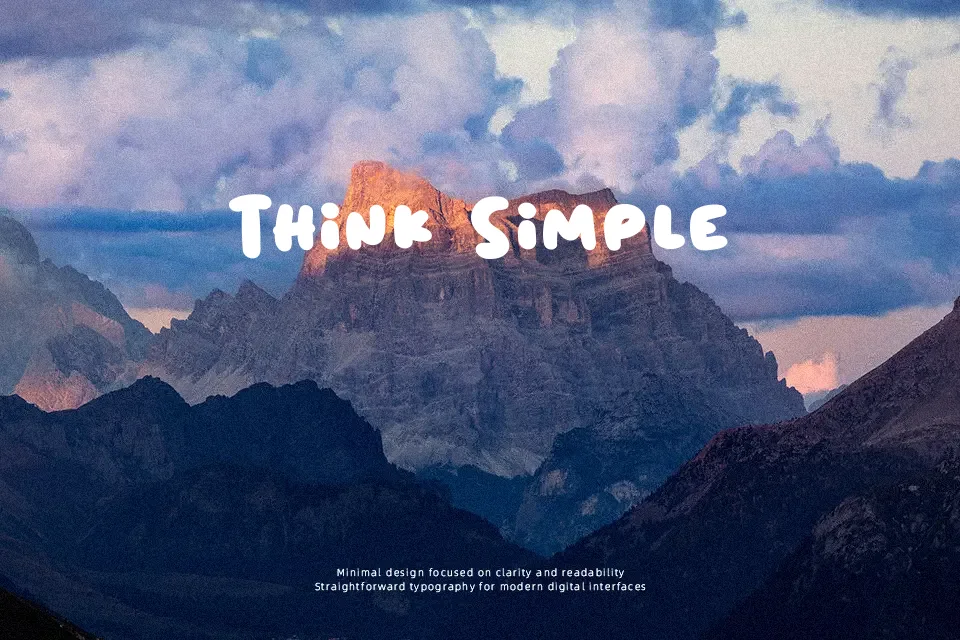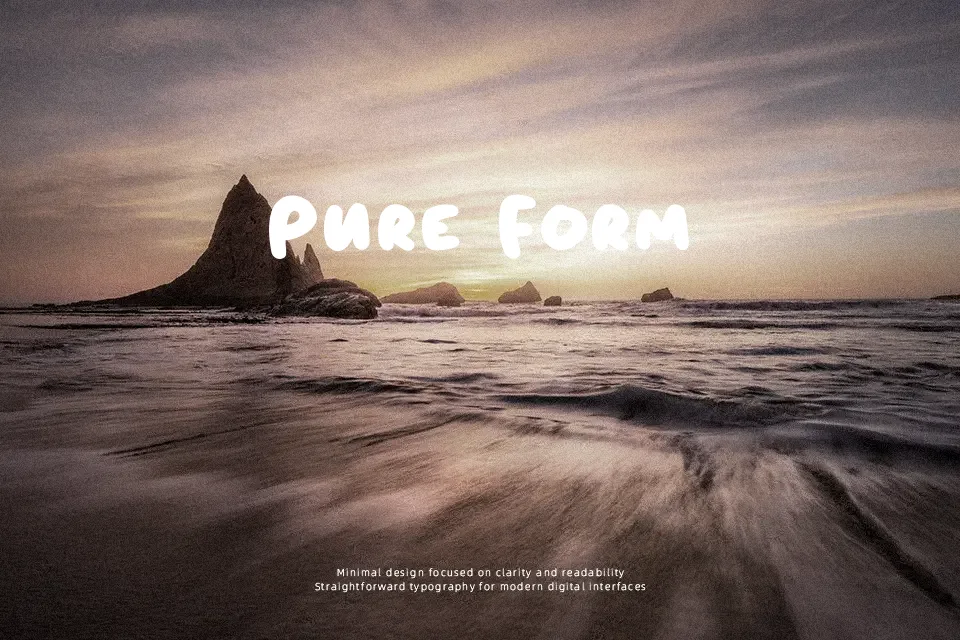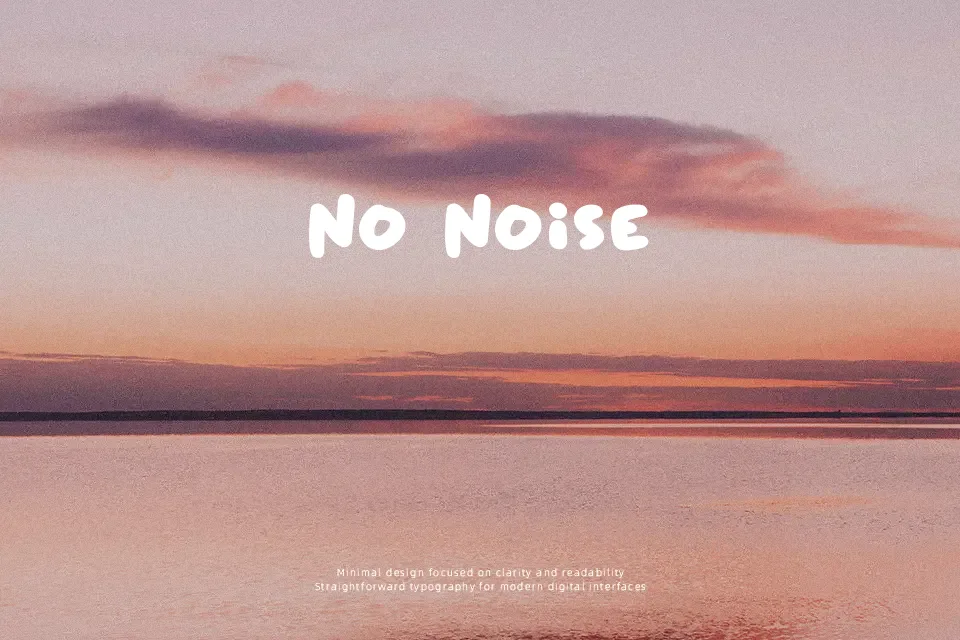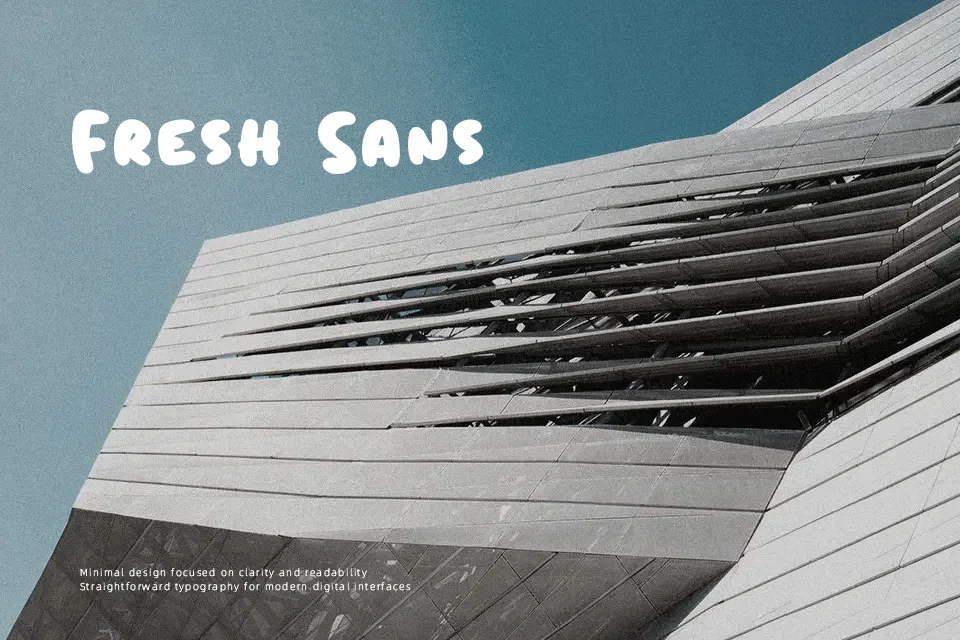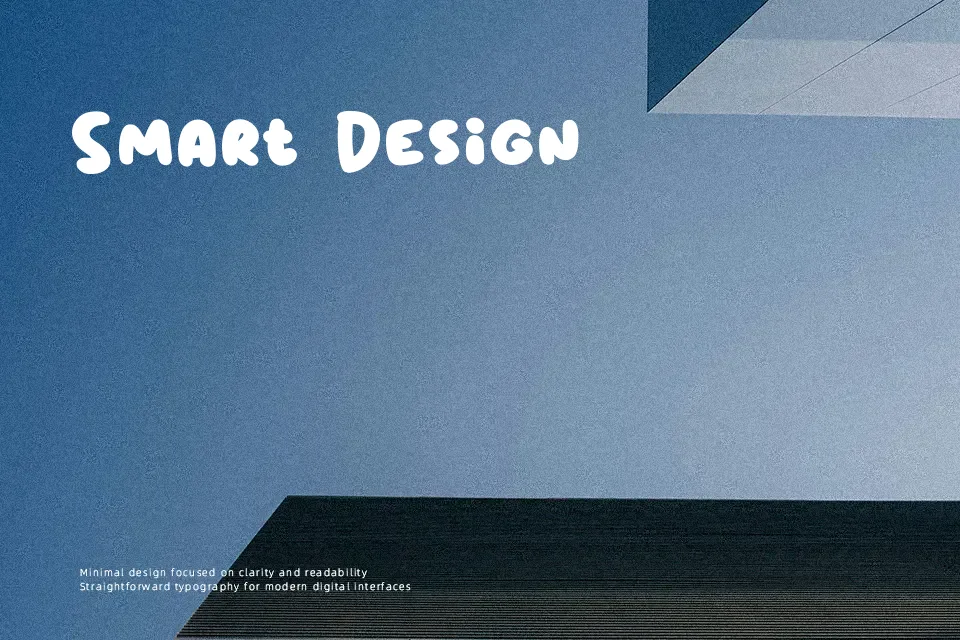
Tasty Matcha Font
Designed by Eifetstype
Tasty Matcha Font features bulbous, heavyweight letterforms defined by gentle curves, stubby ascenders, and virtually nonexistent stroke contrast. The compact horizontal proportions keep words cohesive on large display boards, allowing individual characters to command attention across bright retail displays and menu headings. While uppercase shapes maintain consistent optical rhythm, the swollen counters and tightly nested boundaries reduce clarity when rendered at smaller sizes. Consequently, the typeface thrives in short promotional callouts rather than continuous body paragraphs, where dense silhouettes quickly exhaust the eye.
dessert cafe packaging, children book titles, birthday greeting cards, food truck menus
extended paragraph text, corporate legal contracts, technical instruction manuals, mobile navigation links